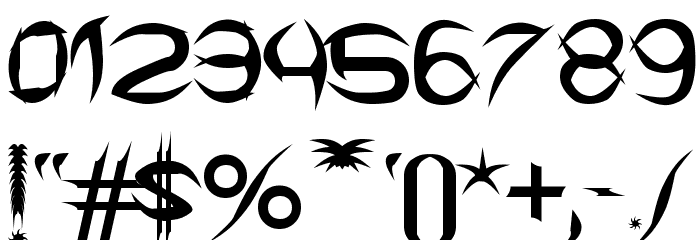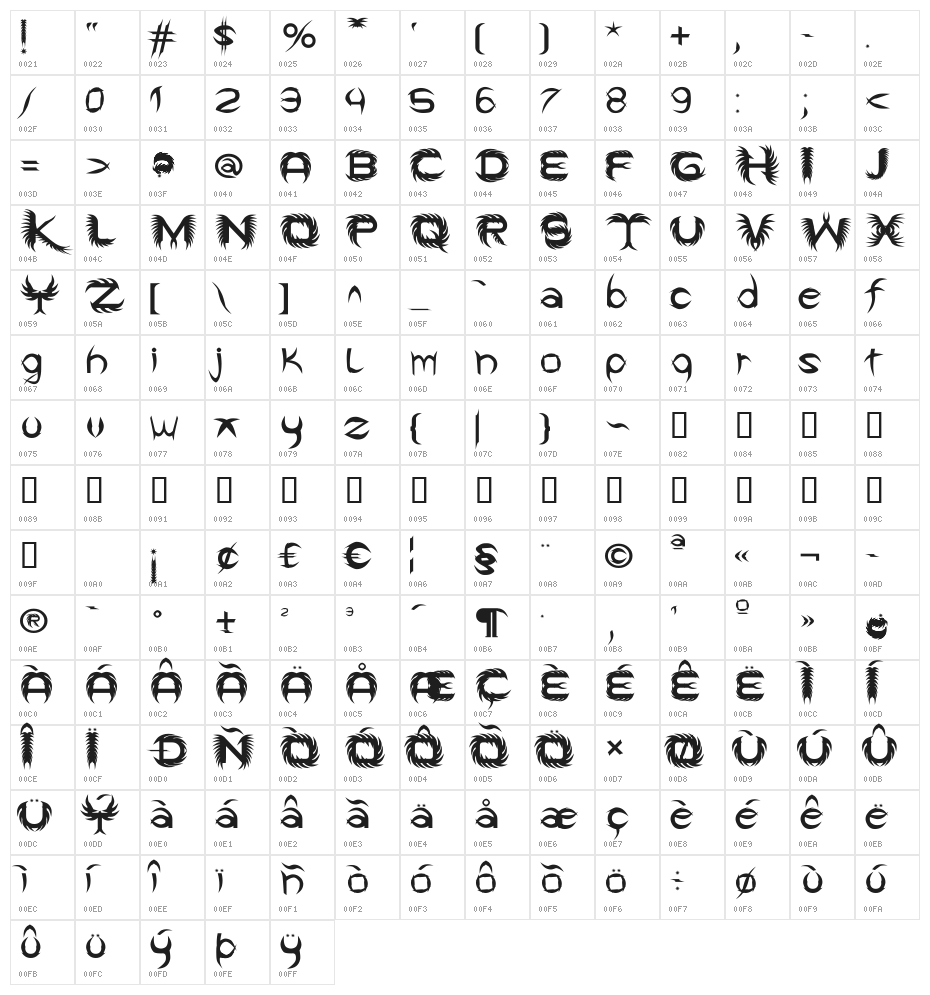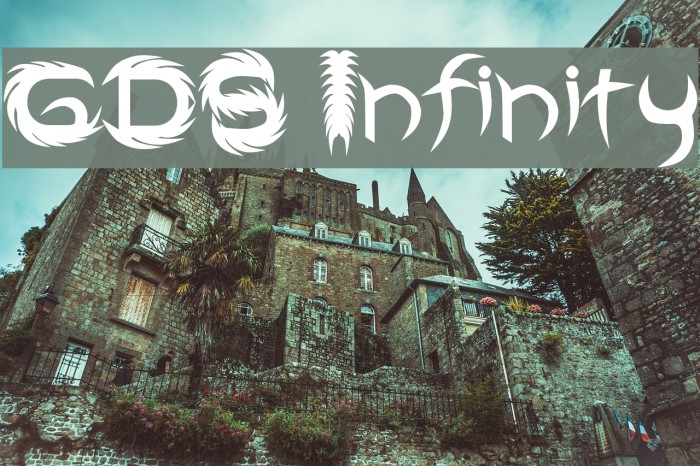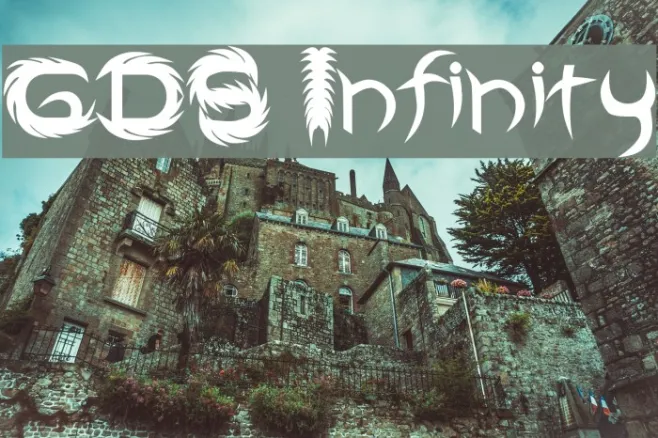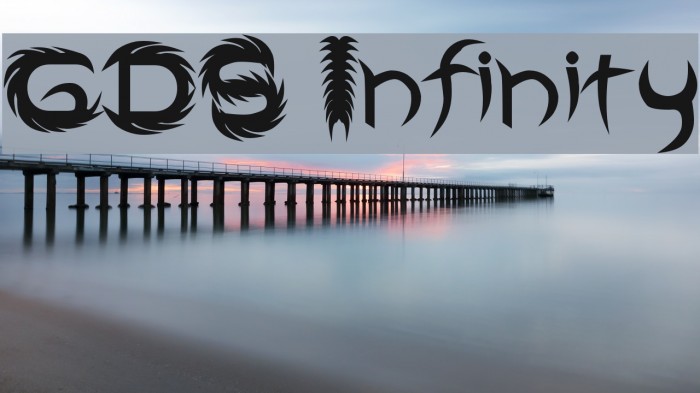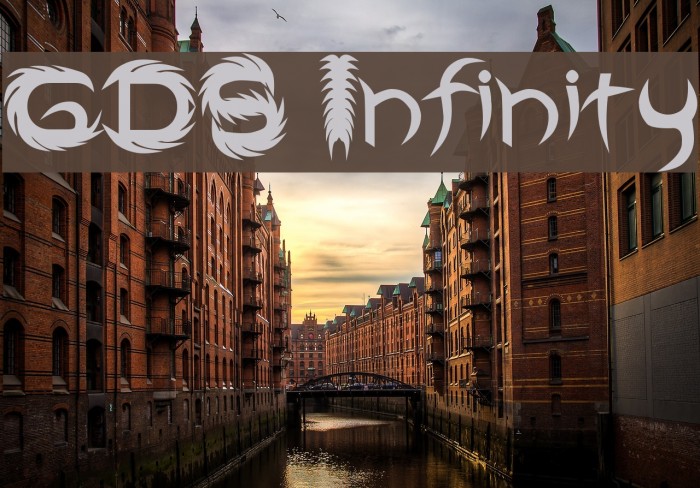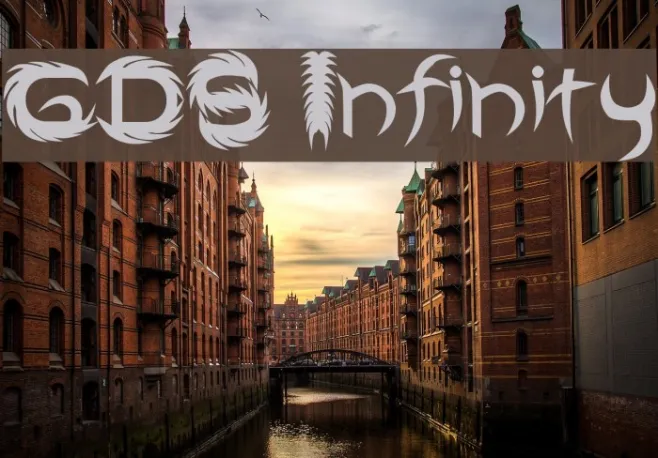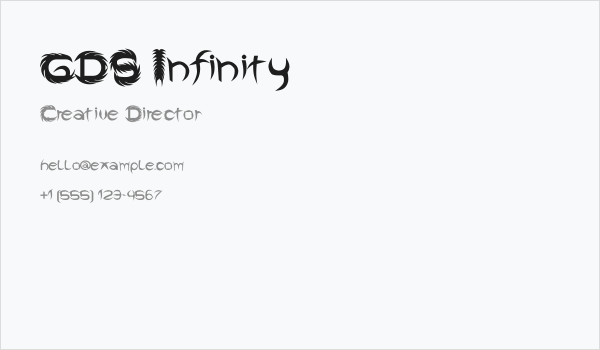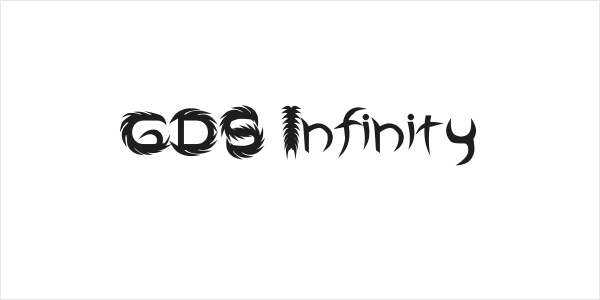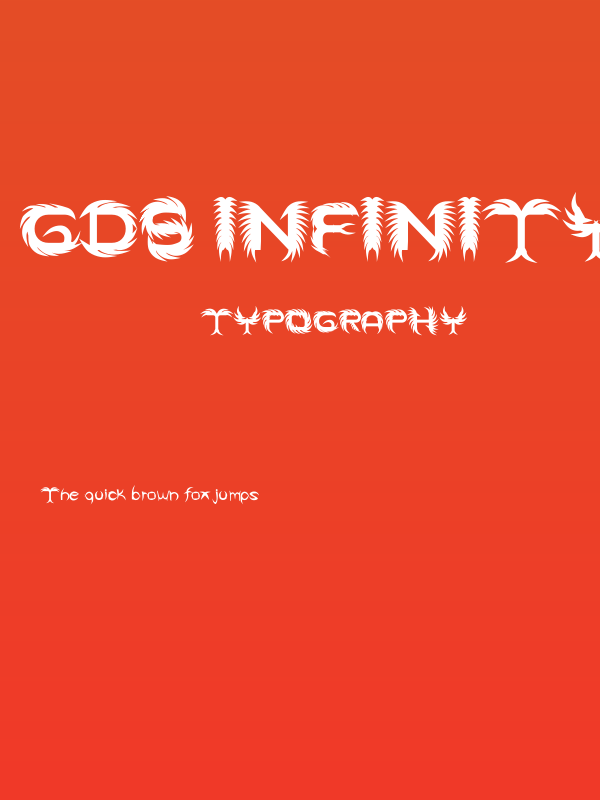
GDS Infinity Font
This font features a highly decorative and intricate design, characterized by sharp, spiky elements that create a dynamic and edgy appearance. The letters are bold and have a unique style that combines both angular and curved elements, giving them a sense of movement and energy. The uppercase and lowercase letters maintain a consistent theme, with the uppercase being more elaborate. Numbers and special characters follow the same design principles, ensuring a cohesive look across all glyphs. This font is ideal for projects that require a bold statement and a touch of creativity.
| Proposed Projects | Ideal for album covers, posters, branding for edgy products, or any project needing a bold, artistic touch. |